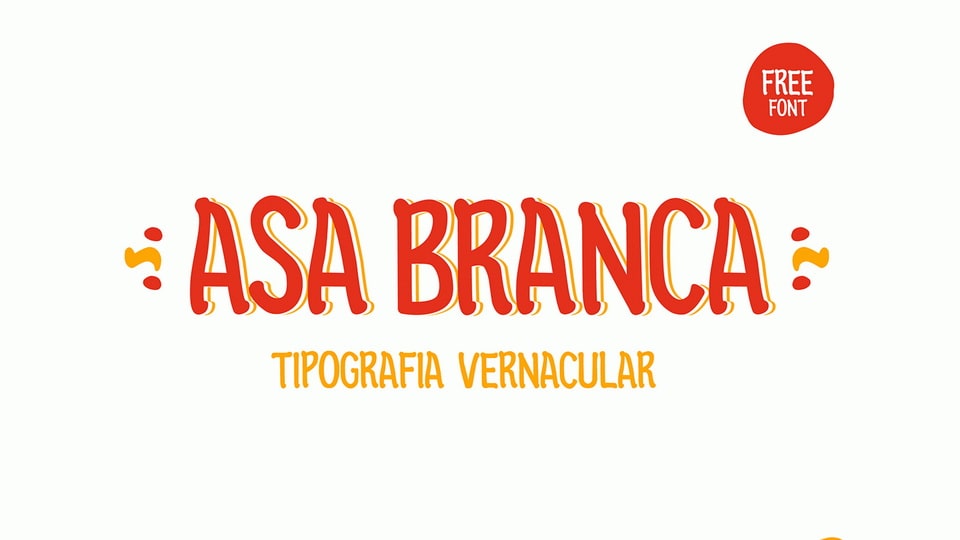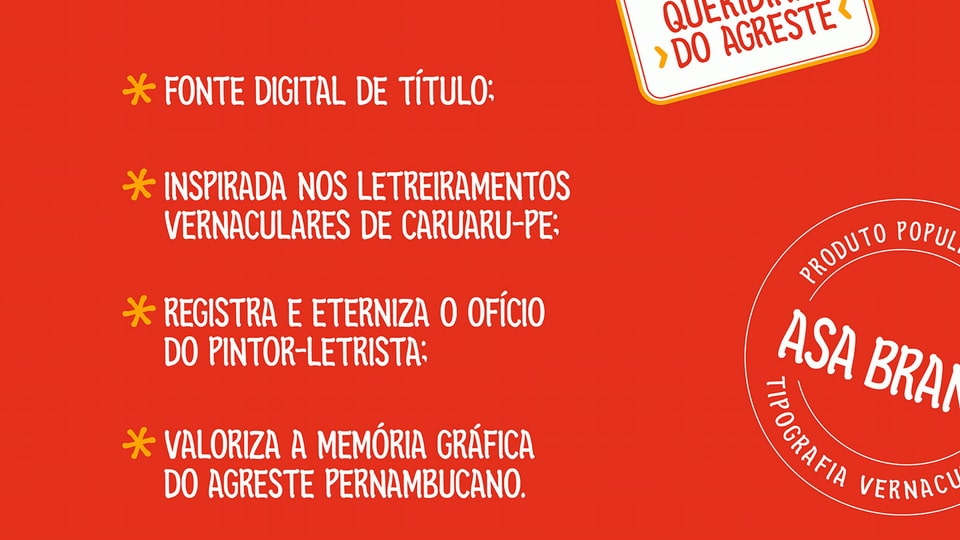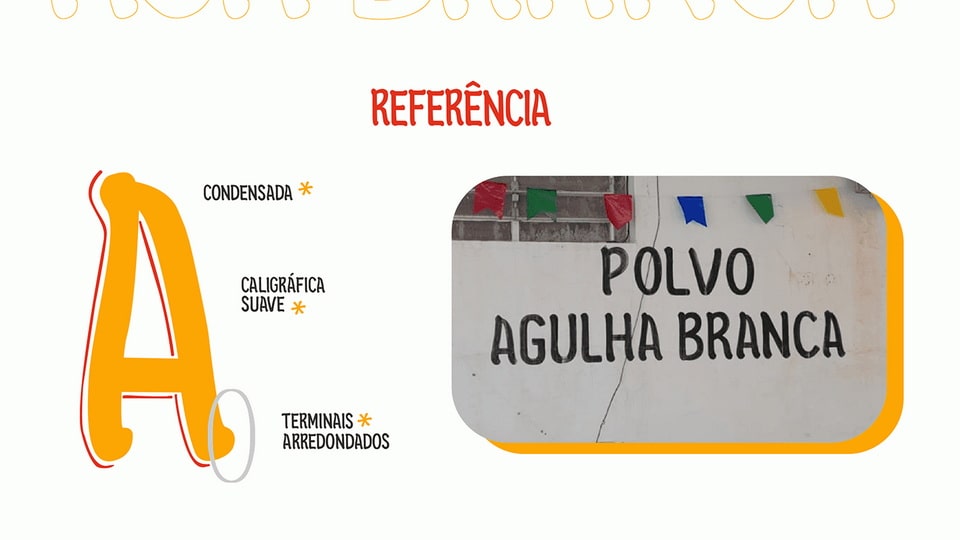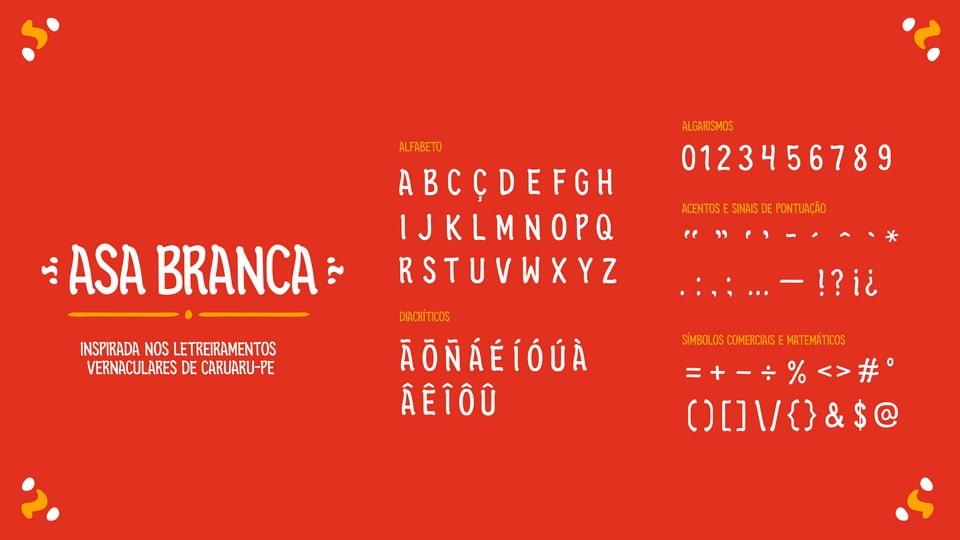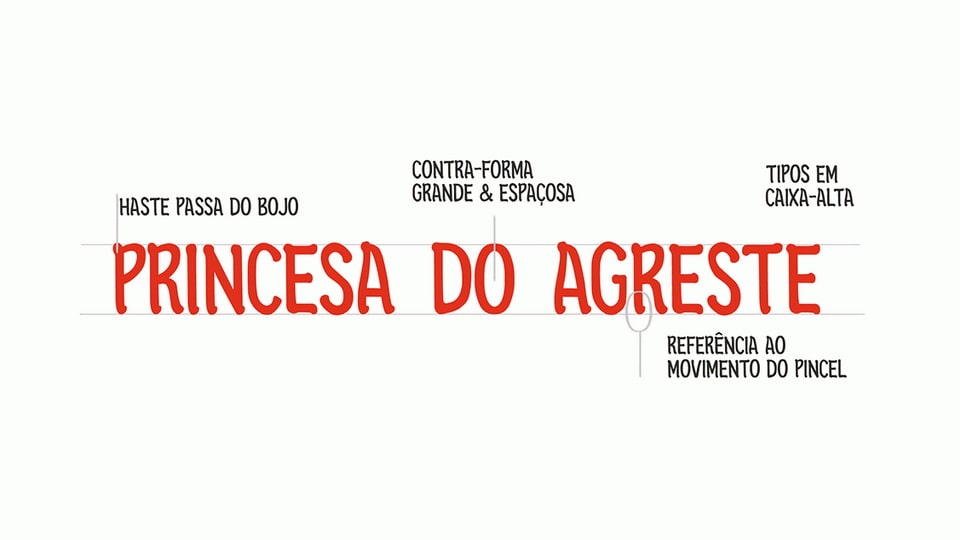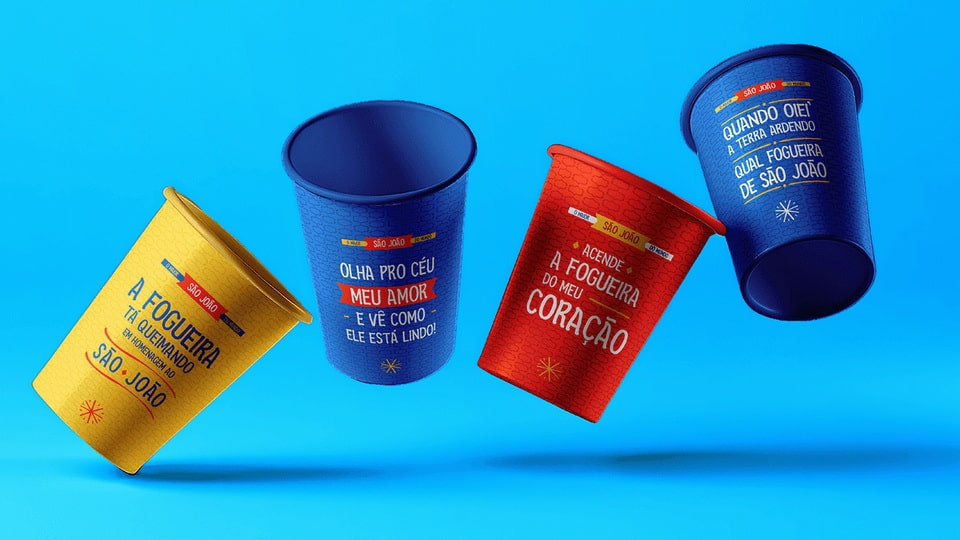
Asa Branca is a digital font developed from the vernacular signs of the city of Caruaru, which is located in the interior of Pernambuco. Its name refers to a migratory bird, which has a strong symbolism of freedom and resistance in northeastern culture, having even inspired the famous song by Luiz Gonzaga, of the same name.